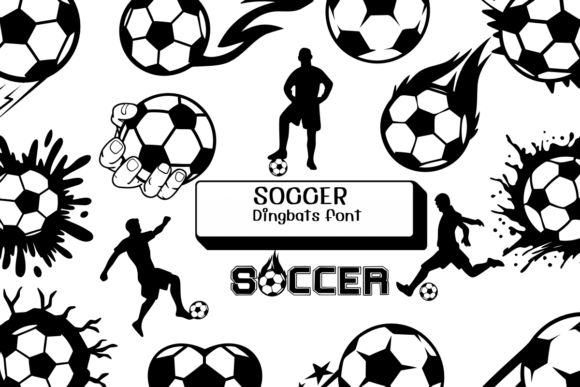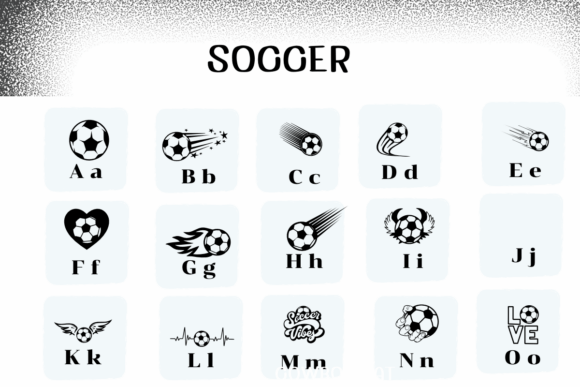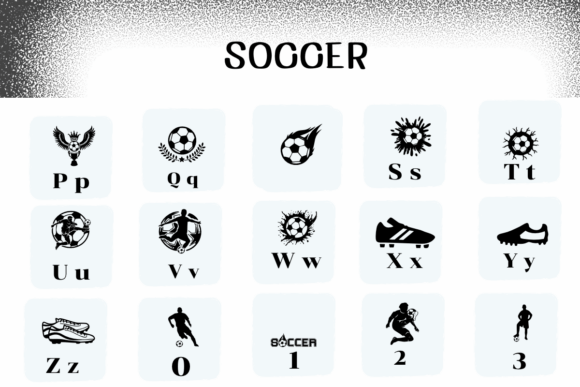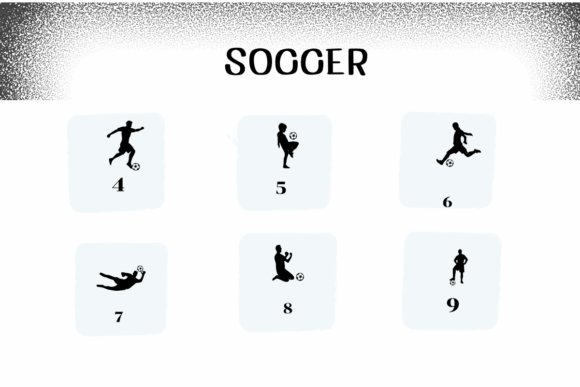
Soccer Font
About the Soccer Font
Get ready to be inspired by Soccer Font, a fresh and dynamic typeface for modern creators. Soccer is a dingbats font with a playful theme. This font can enhance your creative projects such as wedding invitations, DIY, crafts, decorations, logos, and many other creative ideas.
Soccer Font Usage Examples
Soccer Font Example